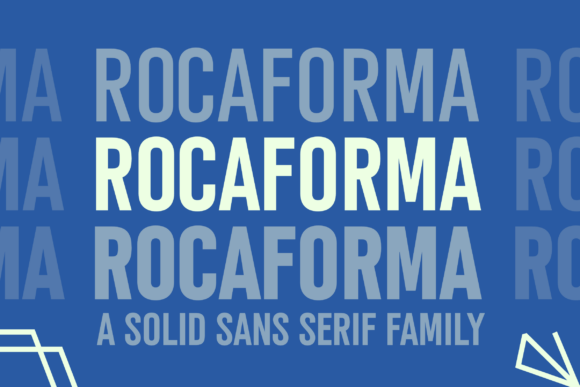
Rocaforma Regular Font: Elevate Your Design with a Modern Sans Serif
In the world of typography, a well-crafted font can make all the difference in elevating your design to new heights. Introducing Rocaforma Regular Font, a tall, modern sans serif typeface that exudes elegance and precision. With its sleek geometric build and subtle humanist touches, Rocaforma is the perfect choice for designers seeking a commanding presence in their branding, packaging, posters, and editorial layouts.
The Design Philosophy of Rocaforma Font
Rocaforma font is built on a foundation of clean lines, geometric shapes, and a dash of humanist flair. Its dense vertical proportions give it a statuesque presence, while the rounded curves and gentle stroke contrast keep it approachable and versatile. This harmonious balance of modernity and elegance makes Rocaforma an exceptional choice for designers seeking a font that can adapt to various applications.
Key Features of Rocaforma Regular Font
- Tall and Sleek: Rocaforma’s dense vertical proportions make it perfect for headlines, titles, and logos that demand attention.
- Geometric Build: The font’s geometric foundation provides a clean and modern aesthetic, ideal for contemporary designs.
- Subtle Humanist Touches: Rocaforma’s humanist elements add a touch of warmth and approachability, making it suitable for a wide range of applications.
- All-Caps Display Typeface: Designed specifically for display purposes, Rocaforma shines in branding, packaging, posters, and bold editorial layouts.
Applications of Rocaforma Regular Font
Rocaforma font is incredibly versatile and can be used in various design applications, including:
- Branding: Create a lasting impression with Rocaforma’s bold and elegant presence in logos, trademarks, and brand identities.
- Packaging: Stand out on store shelves with Rocaforma’s commanding presence in product packaging and labeling.
- Posters: Grab attention and convey your message with Rocaforma’s bold and modern aesthetic in poster design.
- Editorial Layouts: Add a touch of sophistication and elegance to your editorial designs, such as magazines, newspapers, and blogs.
Why Choose Rocaforma Regular Font?
In a world where typography plays a crucial role in design, Rocaforma Regular Font stands out from the crowd. Here are just a few reasons why designers and brands choose Rocaforma:
- Unique Voice: Rocaforma delivers a strong, contemporary voice that elevates your design and sets it apart from the competition.
- Elegance and Precision: The font’s sleek geometric build and subtle humanist touches provide a perfect balance of elegance and precision.
- Versatility: Rocaforma’s adaptability makes it suitable for a wide range of applications, from branding and packaging to posters and editorial layouts.
Rocaforma Regular Font is a game-changer in the world of typography. With its modern sans serif design, sleek geometric build, and subtle humanist touches, it offers a commanding presence that elevates your design to new heights. Whether you’re a designer, brand, or business, Rocaforma is the perfect choice for those seeking a strong, contemporary voice that delivers elegance and precision.
- What is Rocaforma Regular Font? Rocaforma is a modern sans serif typeface with a sleek geometric build and subtle humanist touches.
- What applications is Rocaforma suitable for? Rocaforma is perfect for branding, packaging, posters, editorial layouts, and any design that requires a strong, contemporary voice.
- Is Rocaforma an all-caps font? Yes, Rocaforma is designed as an all-caps display typeface.